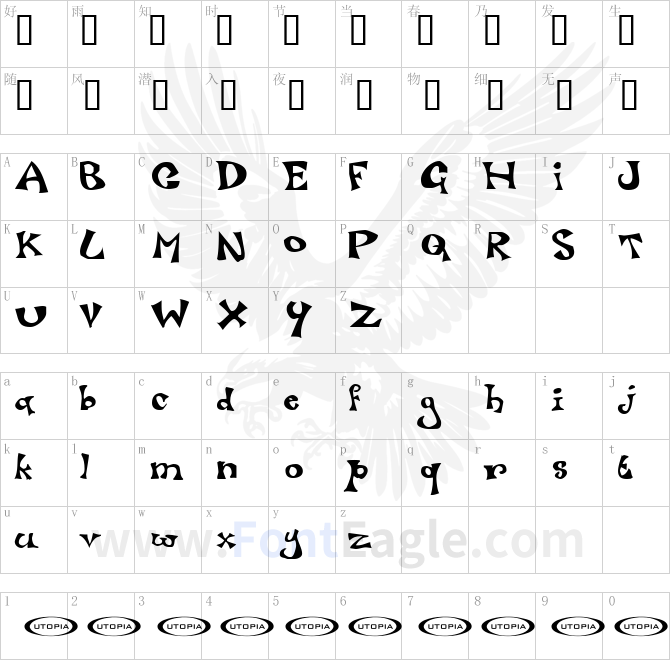
- Font name:Luxo
Luxo is a great font, widely used in graphic design, single-page menu design, poster design and other fields, and is deeply loved by designers.Luxo download.